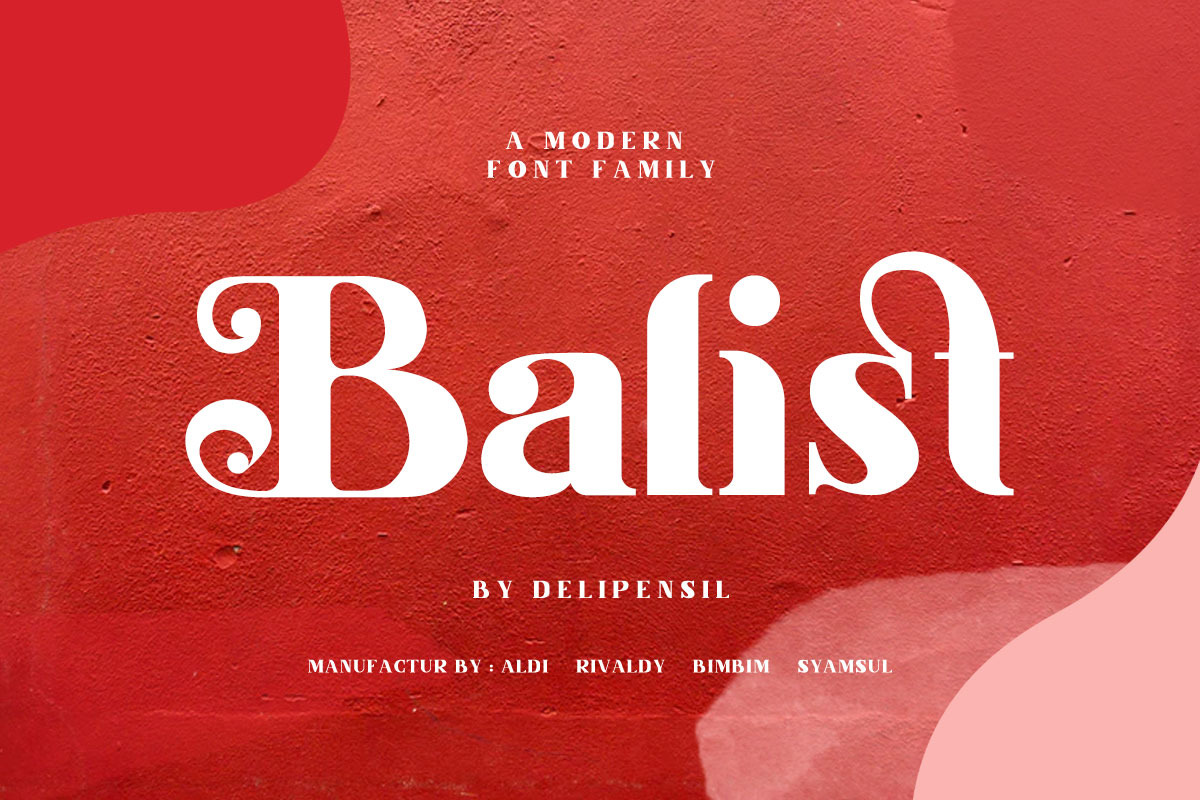
Balist - Modern Serif Font
Bismillah, Introduction Balist - Modern Serif Font
Red inside, this our new look, beauty clean and mindful , it combine in one font, use this font for anything beauty place for your logo, headline, cover book, magazine and many more